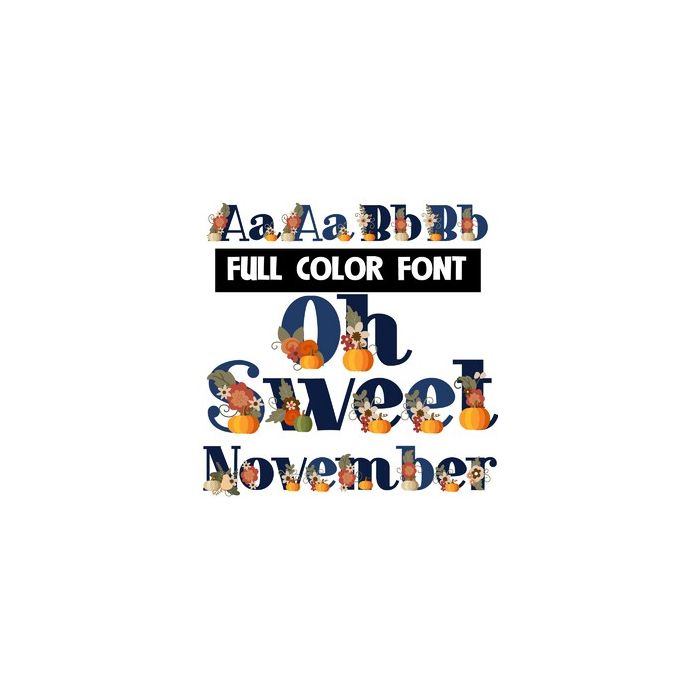
This full-color font features an autumn color palette, pumpkins, florals and an alt version w/ secondary colors available through your system's or Silhouette's glyph map.